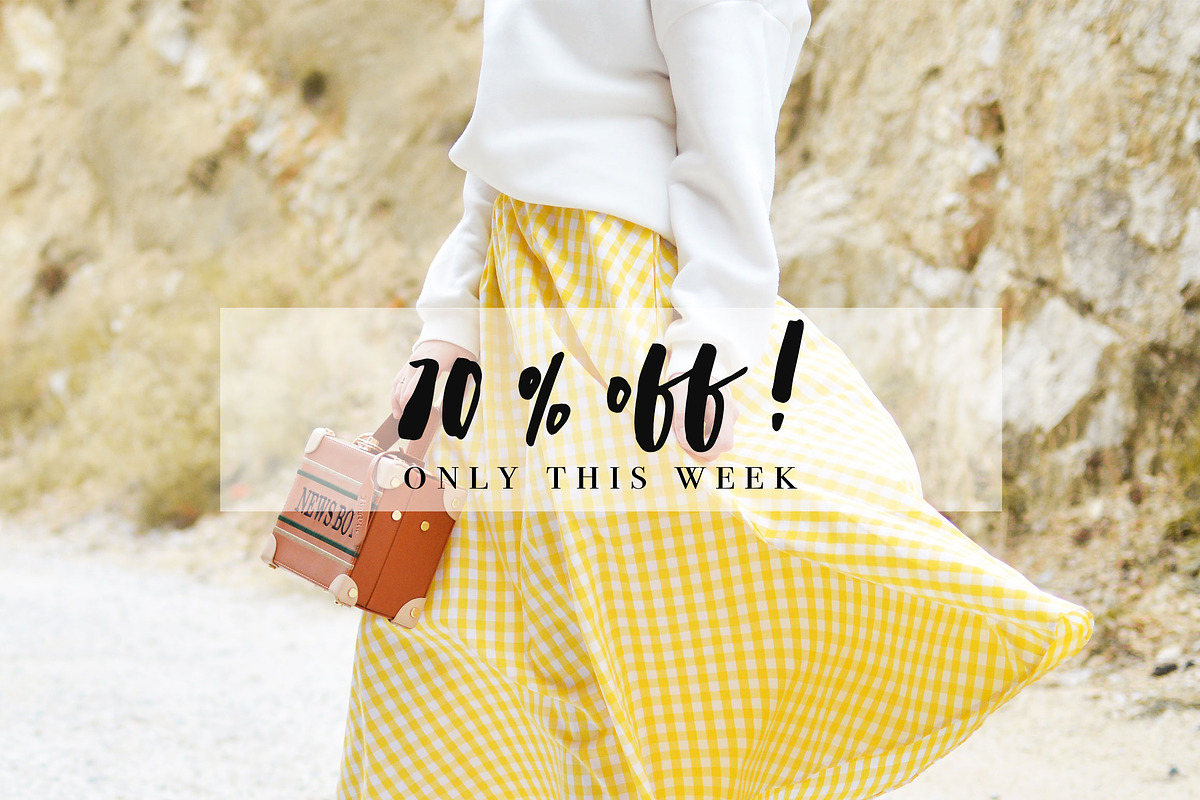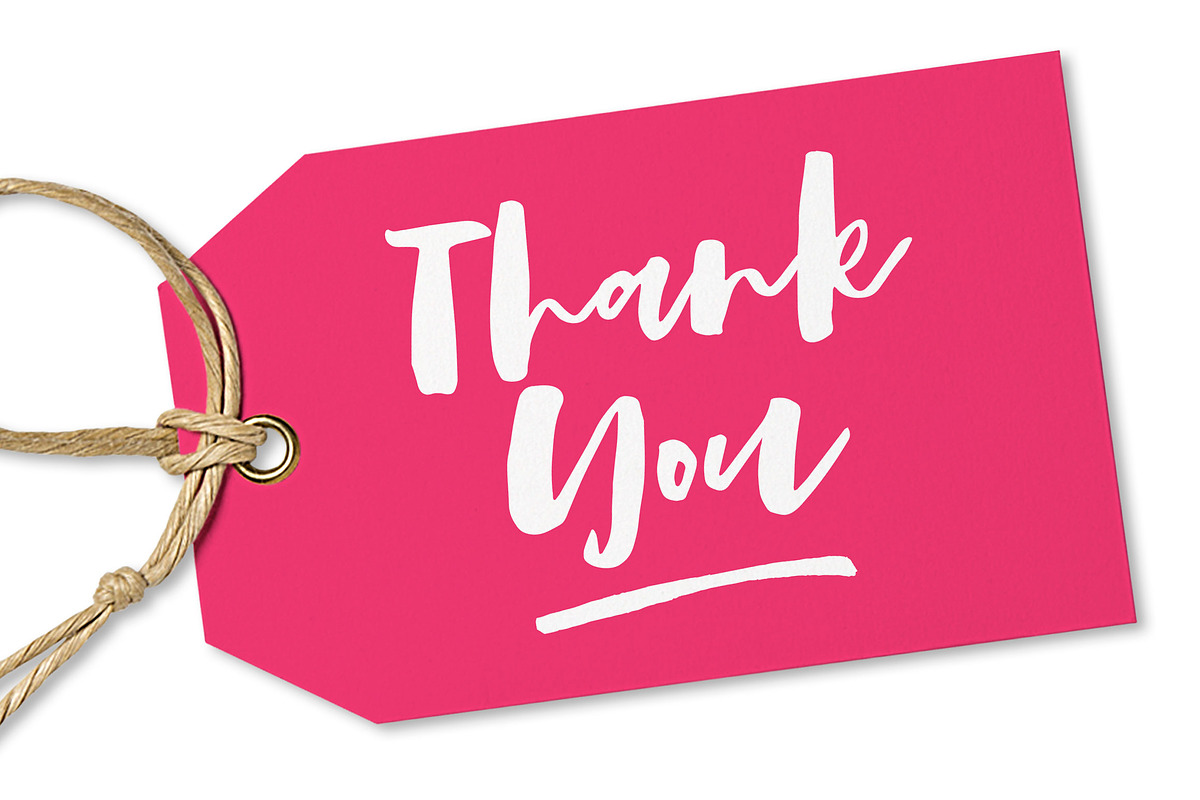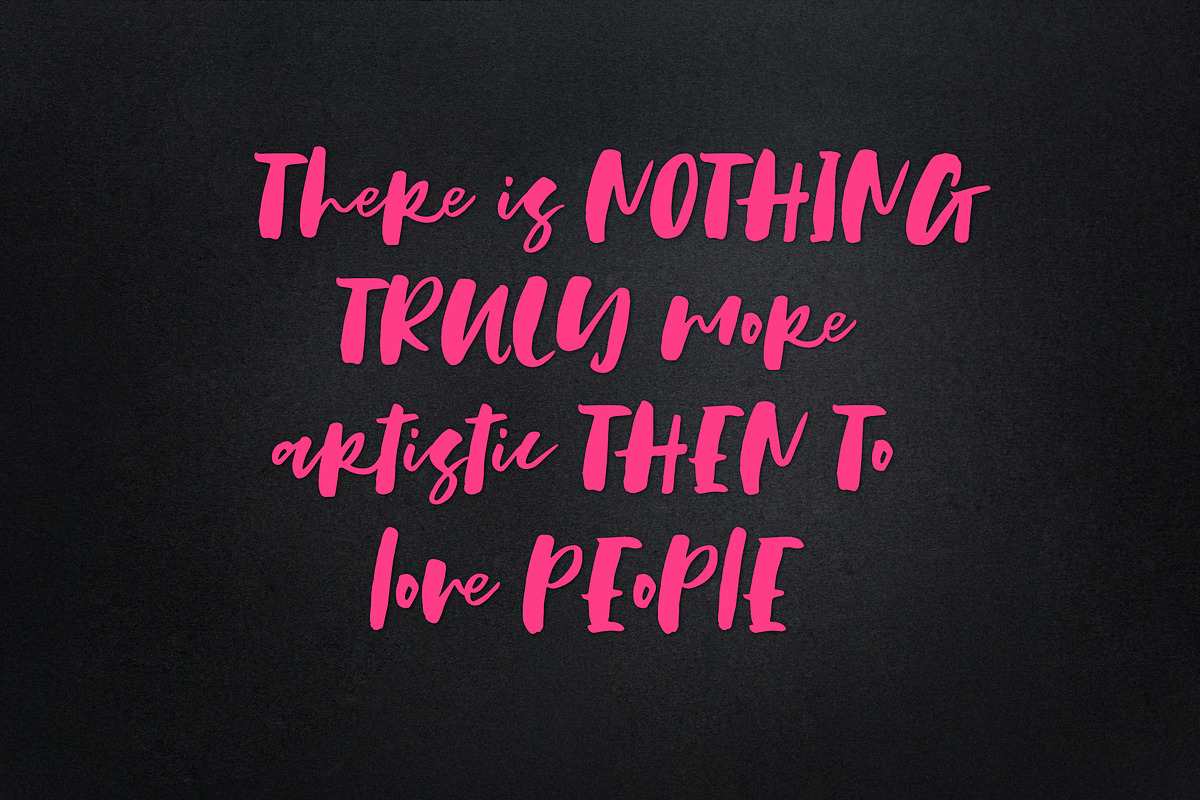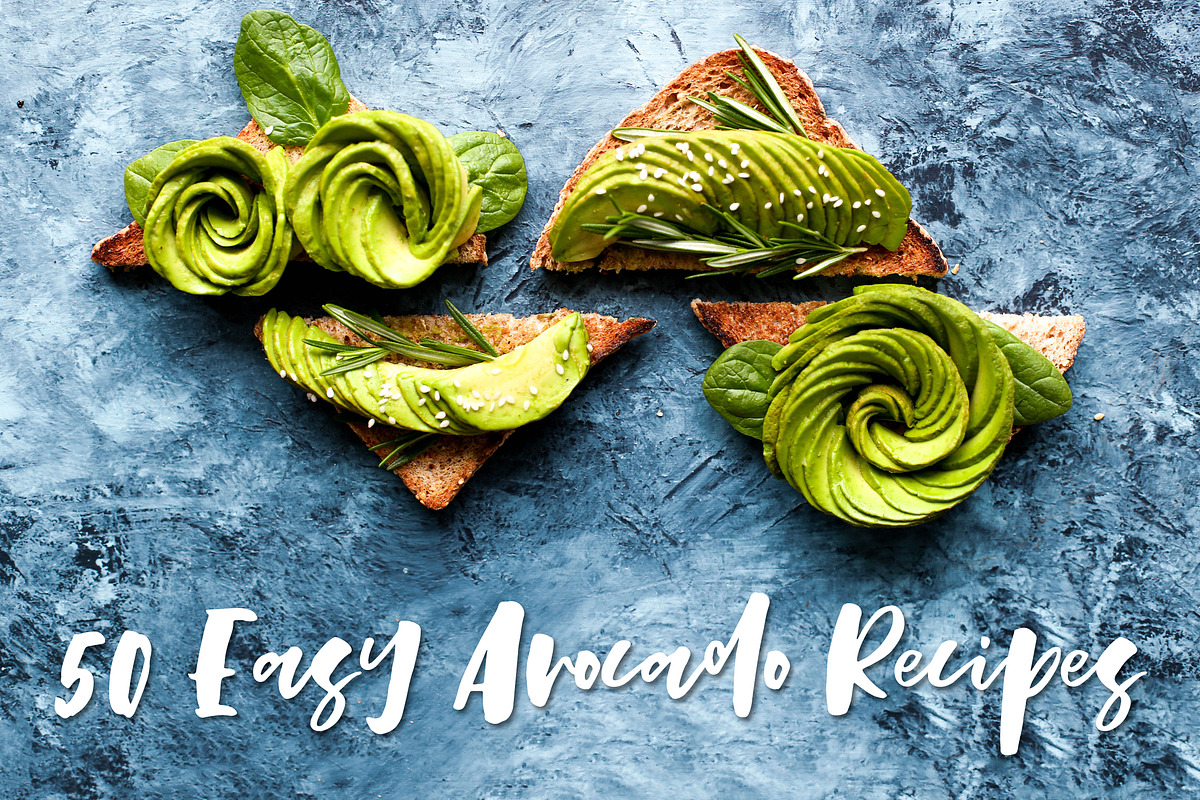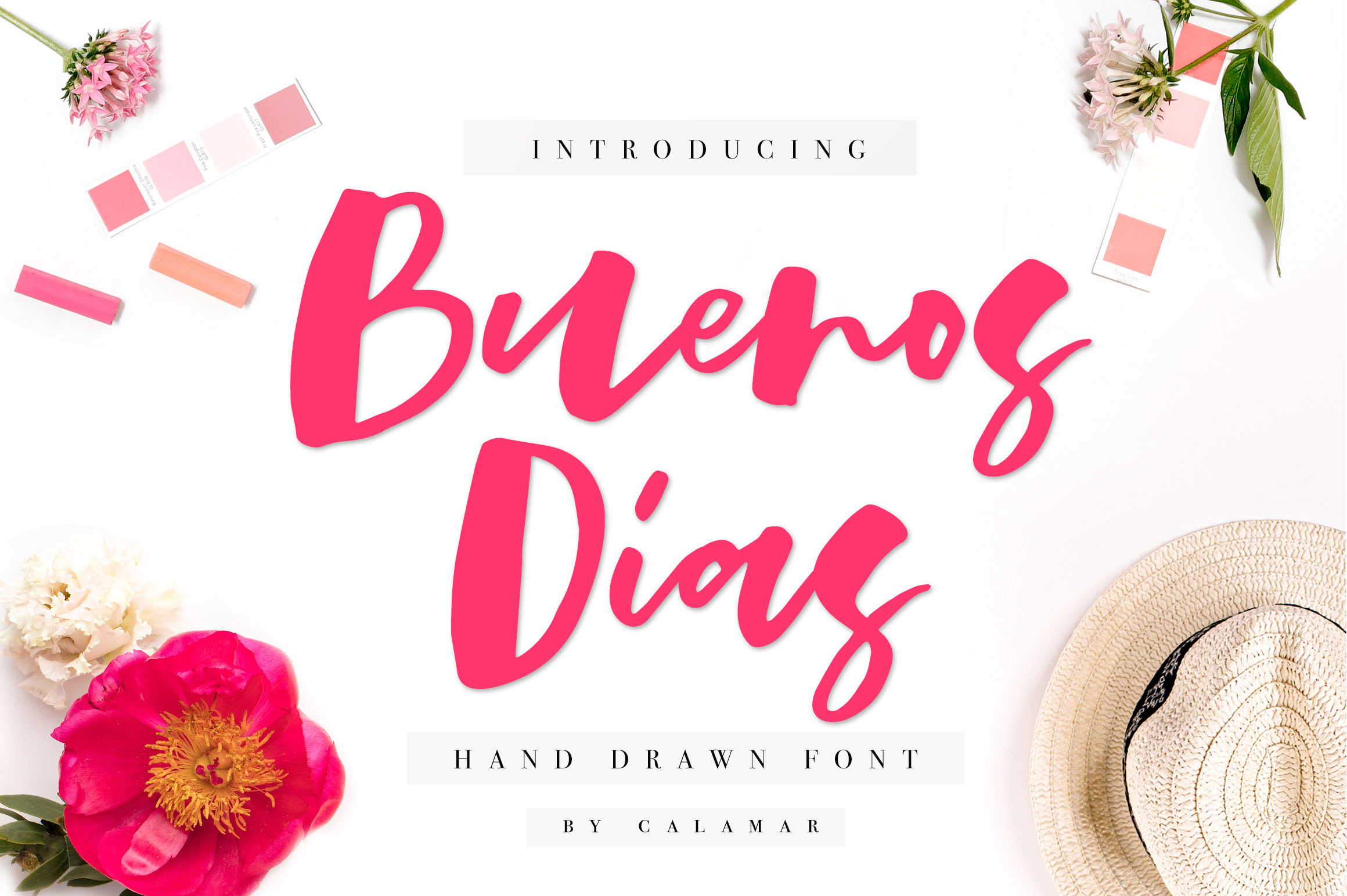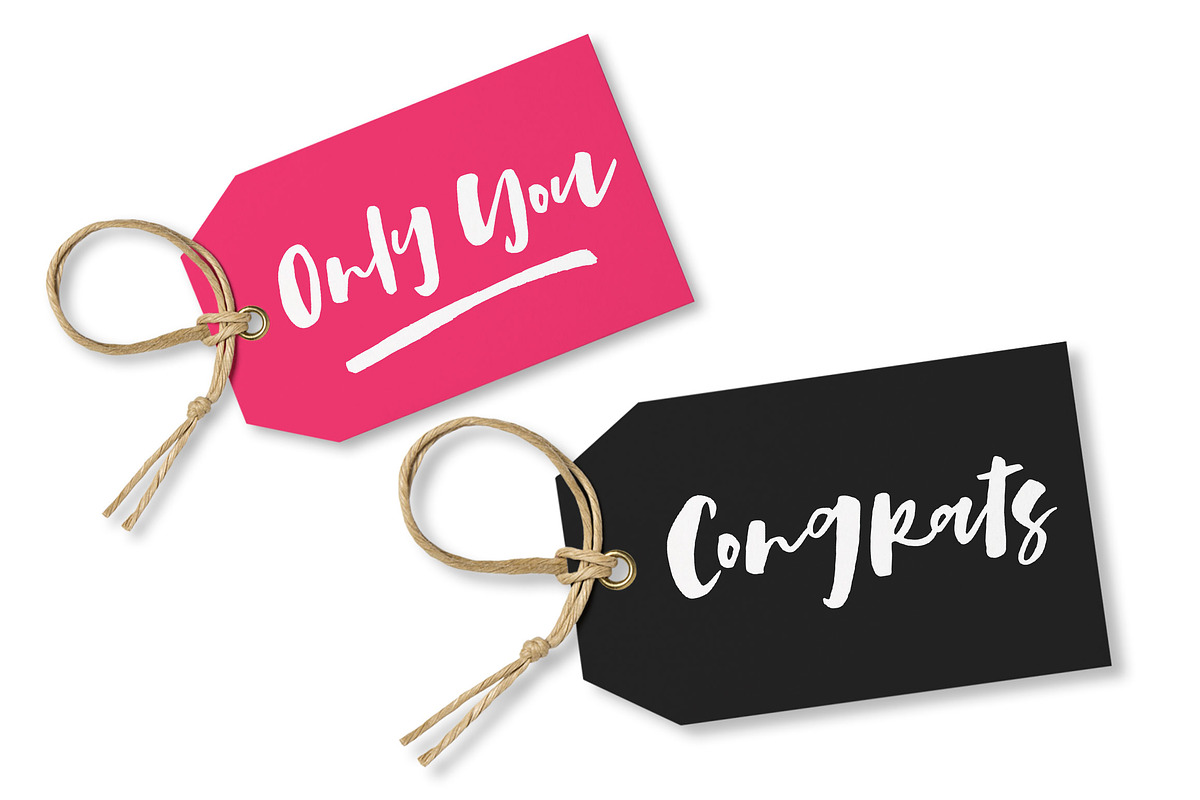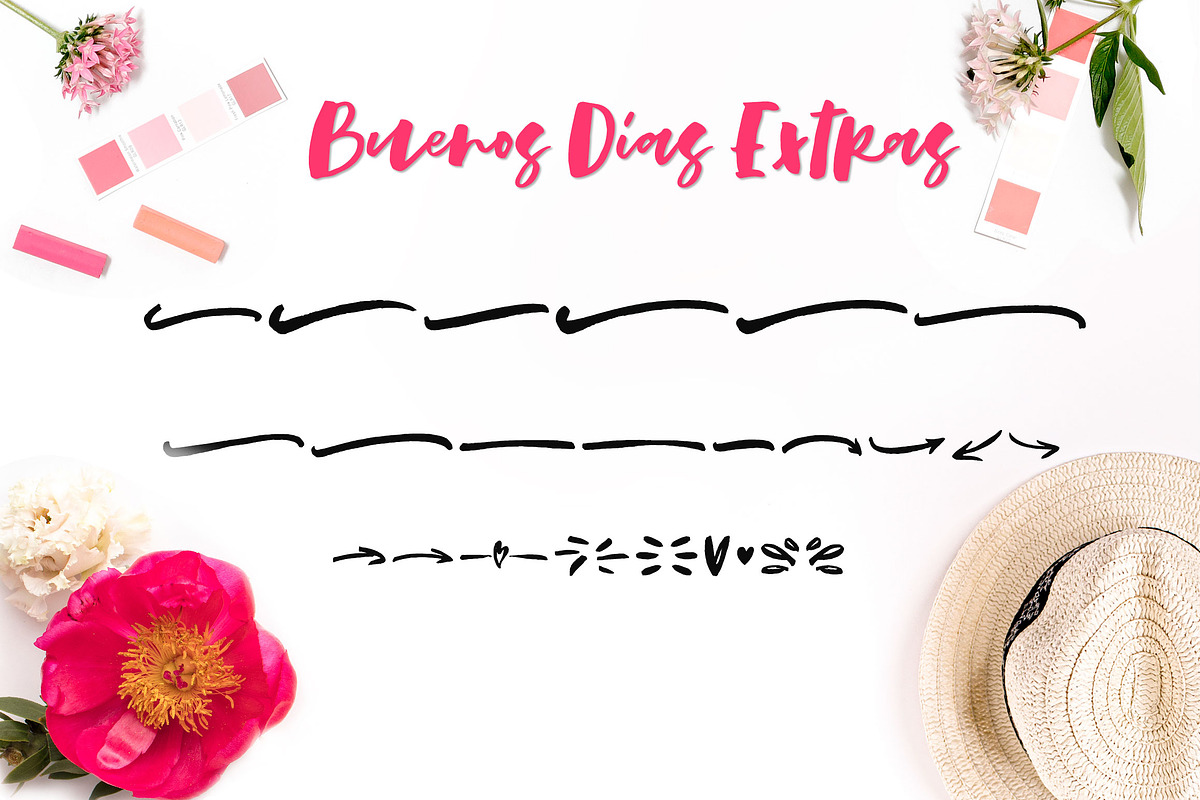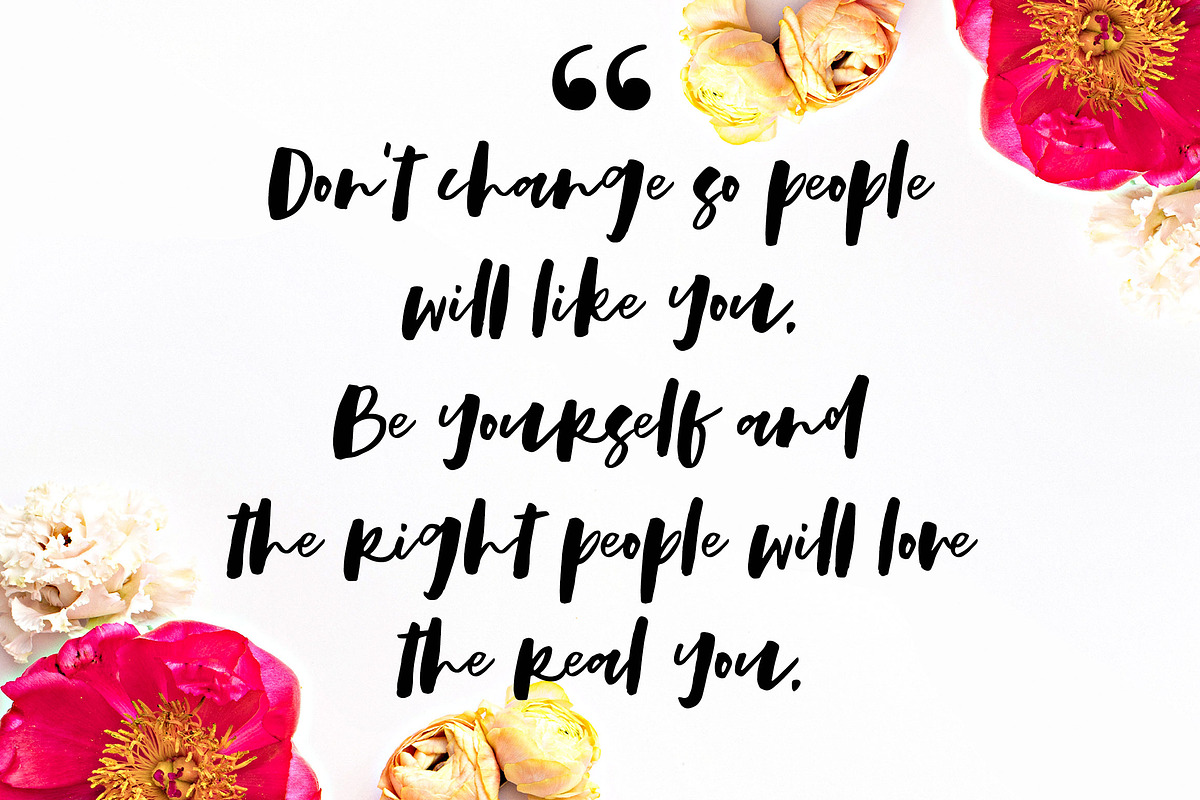
Introduce you my new Buenos Dias Font!
It's a hand brushed script created with a brush and ink. Buenos Dias Font will look lovely on cards, wedding invitations, headings, branding materials, quotes, t-shirt and any other amazing projects you are working on.
Buenos Dias Font includes Upper and Lowercase Basic Characters, Numbers and Punctuation, Stylistic Alternates, Standart and Discretionary Ligatures that allow you to create unique designs.
Buenos Dias has multilingual support for the Western and Central European Languages.
Also you'll receive an Extra font that includes 26 handdrawn shapes which you can type out using the characters a-z, A-Z.